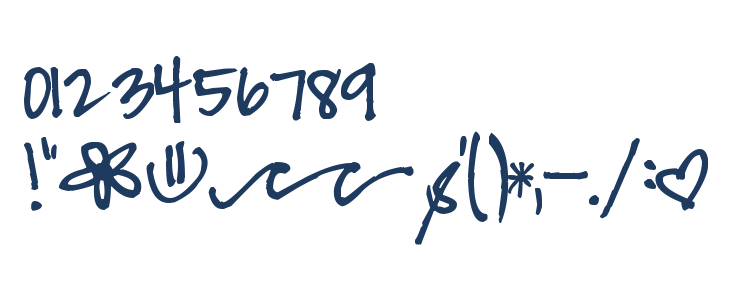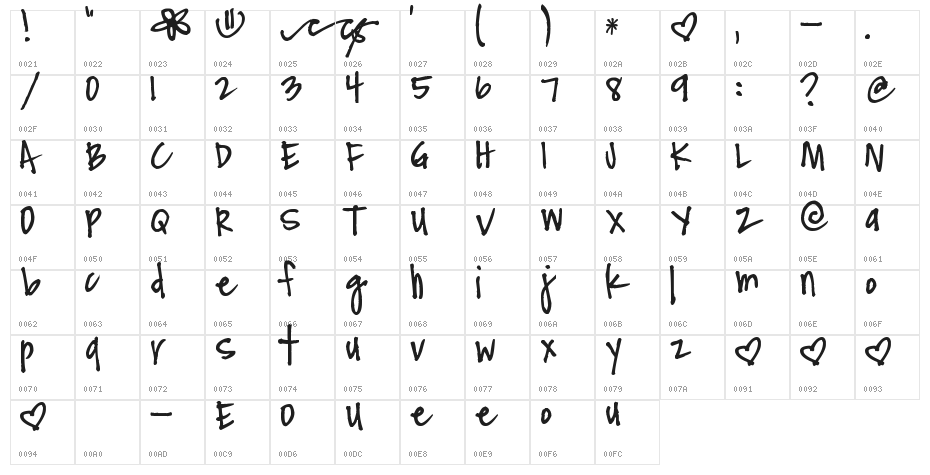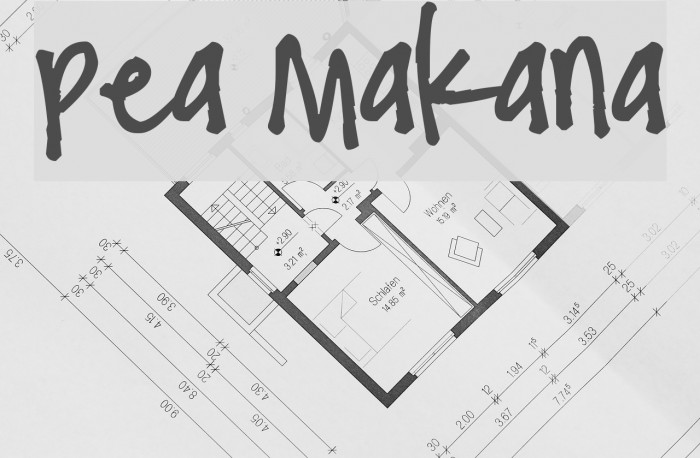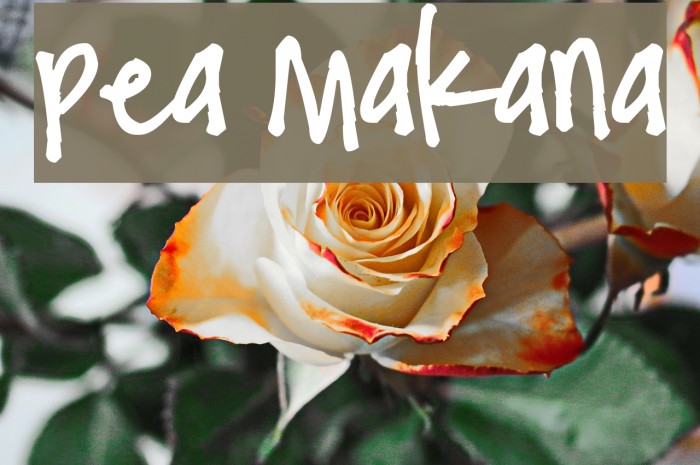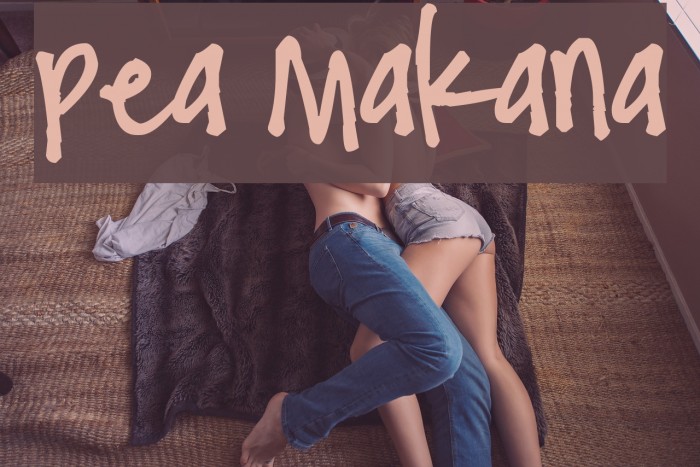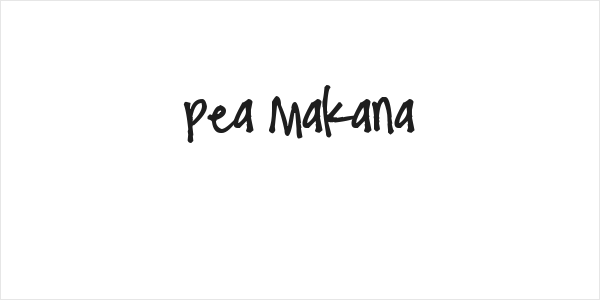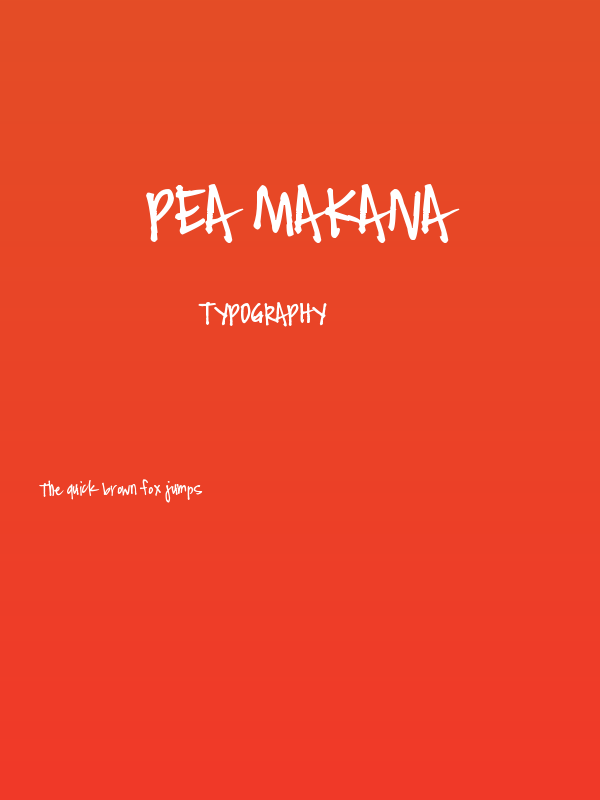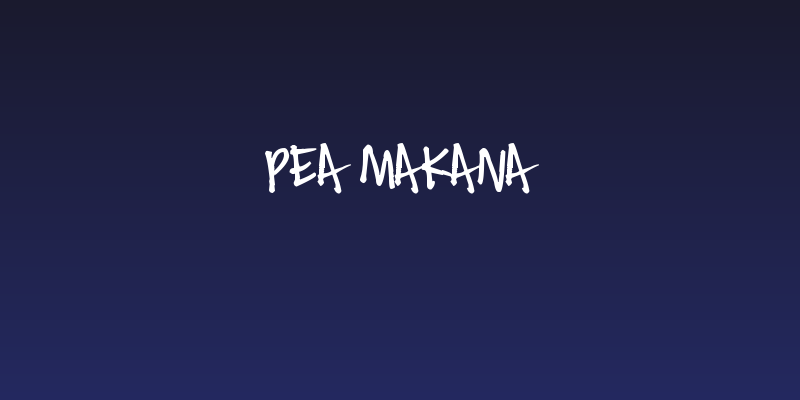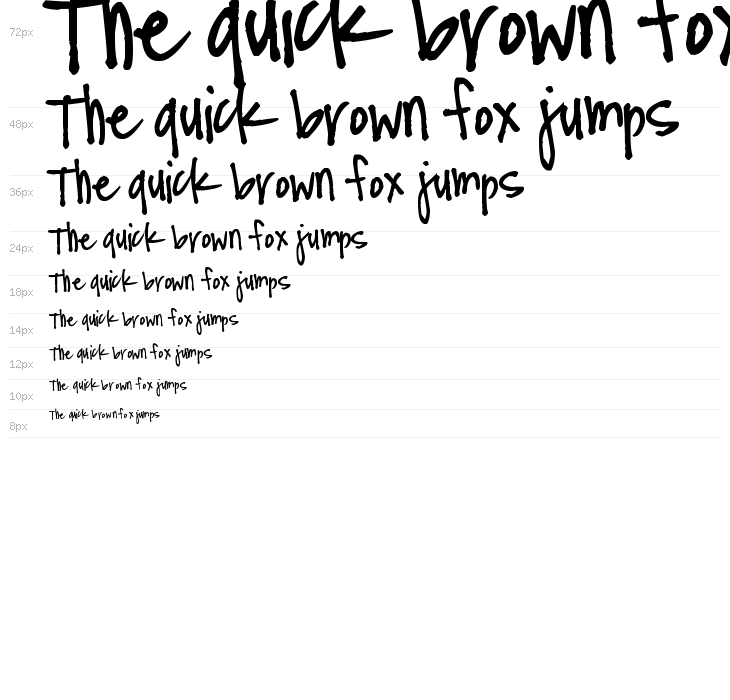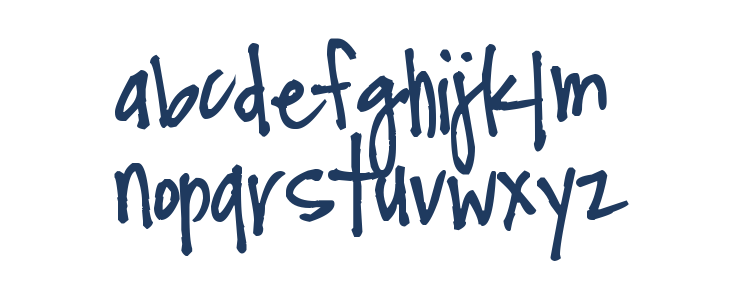
Pea Makana Font
Pea Makana Description
This font exhibits a playful and informal handwritten style, characterized by its bold and expressive strokes. The letters are slightly irregular, giving it a personal and casual feel. The uppercase and lowercase letters maintain a consistent style, with some letters featuring unique loops and curves that add to its charm. The numbers and special characters are crafted with the same playful touch, ensuring a cohesive look across all characters. This font's energetic and lively appearance makes it suitable for projects that require a personal or whimsical touch.
Overall StylePlayful
Use CaseLogos, Headlines, Informal Text
Proposed ProjectsIdeal for greeting cards, children's books, playful branding, and casual invitations.